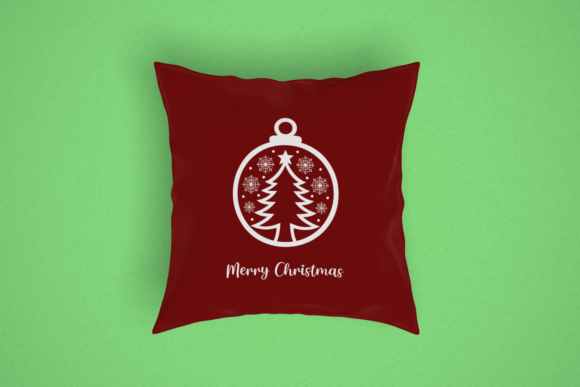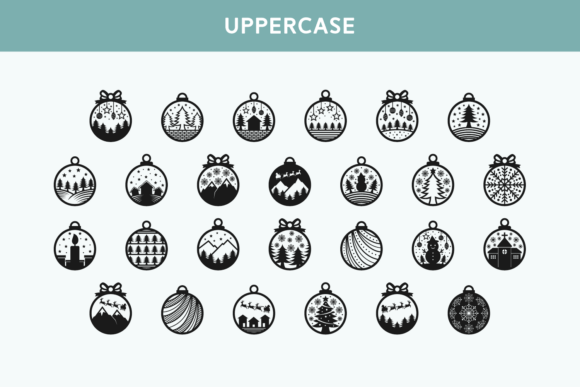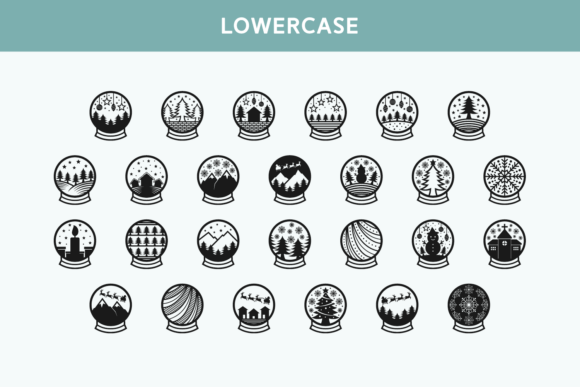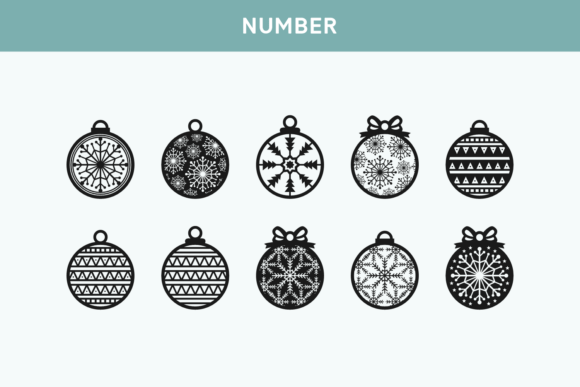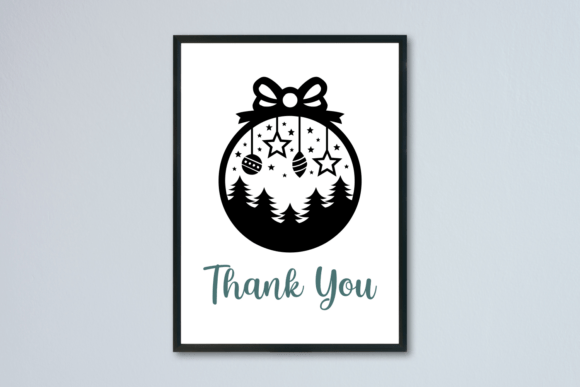
Deck the Halls with Christmas Decorations Font
The holiday season is upon us, and what better way to get into the spirit than with a festive font that’s bursting with Christmas cheer? Look no further than the Christmas Decorations dingbats font, an extensive collection of over forty stylized illustrations of ornaments and snow globes that are perfect for adding a touch of holiday magic to your designs.
A Winter Wonderland of Illustrations
Each icon in the Christmas Decorations font features intricate details that will transport you to a winter wonderland. From snowy landscapes to Christmas trees, snowflakes, candles, and even Santa’s sleigh, these high-quality glyphs are sure to delight designers and crafters alike. Whether you’re creating festive elements for vinyl cutting, laser engraving, seasonal apparel, greeting cards, custom stationery, or digital scrapbooking projects, this font has got you covered.
What Makes Christmas Decorations Font So Special?
• Extensive Collection: With over forty stylized illustrations to choose from, you’ll never run out of ideas for your holiday projects.
• Intricate Details: Each icon is carefully crafted with intricate details that will add a touch of sophistication to your designs.
• High-Quality Glyphs: Provided as a single font, these high-quality glyphs are perfect for use in a variety of applications, from vinyl cutting to digital scrapbooking.
The Christmas Decorations font is a versatile tool that can be used in a wide range of applications. Here are just a few ideas to get you started:
• Vinyl Cutting: Create custom vinyl decals for your holiday gifts or decorations.
• Laser Engraving: Add a personal touch to your laser-engraved gifts or decorations.
• Seasonal Apparel: Design festive t-shirts, hoodies, or hats for the holiday season.
• Greeting Cards: Create custom greeting cards for your loved ones.
• Custom Stationery: Add a touch of holiday cheer to your stationery or gift tags.
• Digital Scrapbooking: Create beautiful digital scrapbook pages or photo albums.
Tips and Tricks for Using Christmas Decorations Font
Here are a few tips and tricks to help you get the most out of the Christmas Decorations font:
• Experiment with Different Sizes: Try scaling up or down to achieve different effects.
• Combine with Other Fonts: Pair the Christmas Decorations font with other fonts for a unique look.
• Customize Your Illustrations: Use your favorite design software to customize the illustrations to fit your needs.
Get Ready to Deck the Halls!
With the Christmas Decorations dingbats font, you’ll be able to add a touch of holiday magic to your designs in no time. Whether you’re a designer, crafter, or simply someone who loves the holiday season, this font is sure to delight. So why wait? Download the Christmas Decorations font today and get ready to deck the halls with festive cheer!